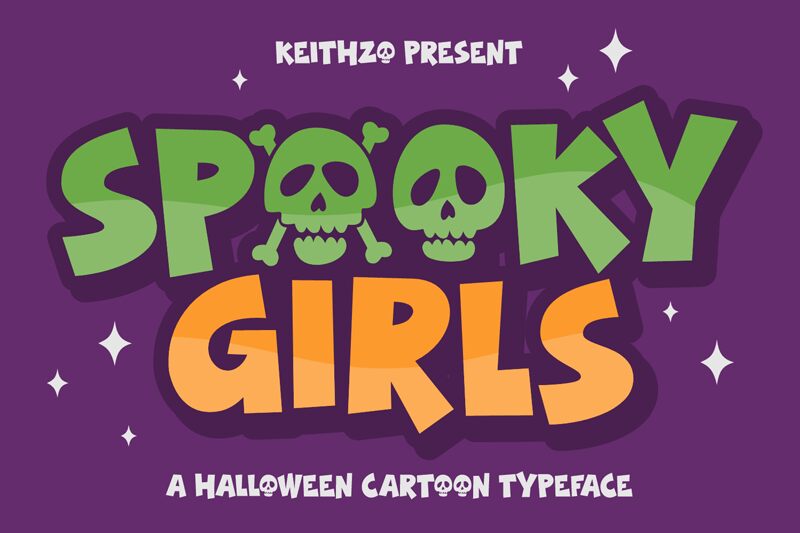
Spooky Girls font by keithzo is a free Halloween display font. Big, balloon-like letters with inky weight and playful wobble give it a kid-friendly creep, while cheeky skull motifs tucked into the round forms add instant character. The strokes feel chunky and confident, so headlines pop without getting gory-more campfire story than slasher flick.
Using Spooky Girls, you can whip up trick‑or‑treat posters, party invitations, classroom crafts, candy bag stickers, social graphics, and YouTube thumbnails that read fast and feel fun. This free font shines when set large with a touch of extra tracking. Pair it with a clean, no‑nonsense sans to keep the spooky sweetness front and center.